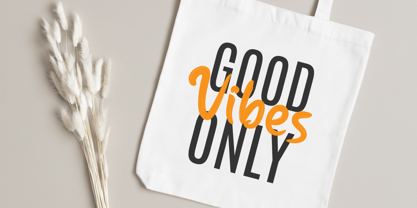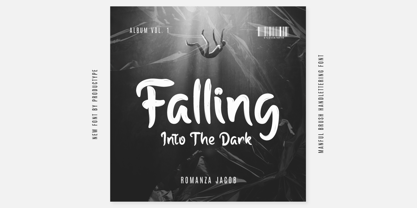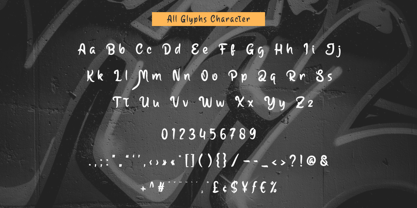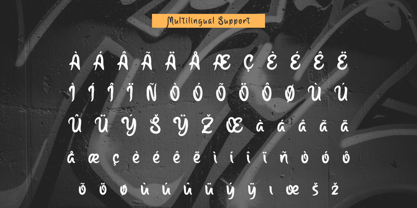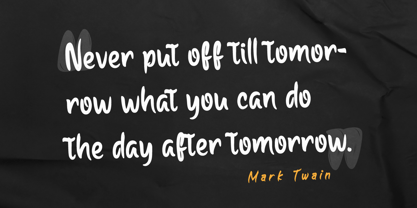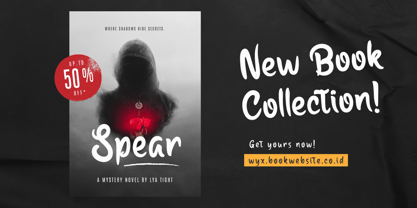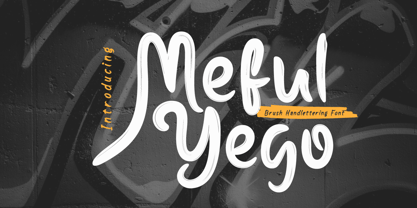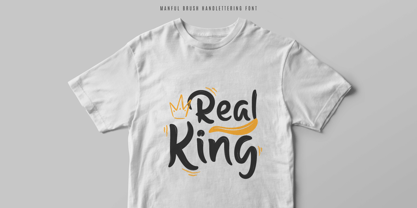
Meful Yego
by Product Type
The Meful Yego Font Family was designed by Lita Faolina and published by Product Type. Meful Yego contains 1 styles.
Meful Yego is a brush-written font that combines strength and style. Its bold, dynamic characters are perfect for designs that require a touch of power and confidence. Whether you’re creating a logo for a fitness brand or a headline for a motivational blog, Meful Yego adds a touch of strength that is sure to captivate your audience.